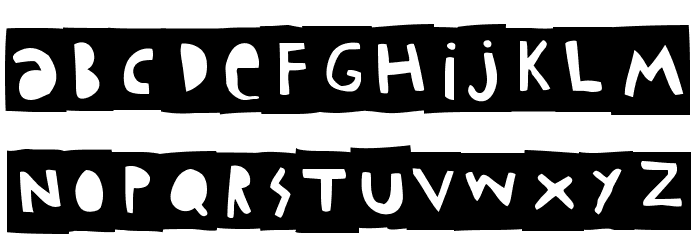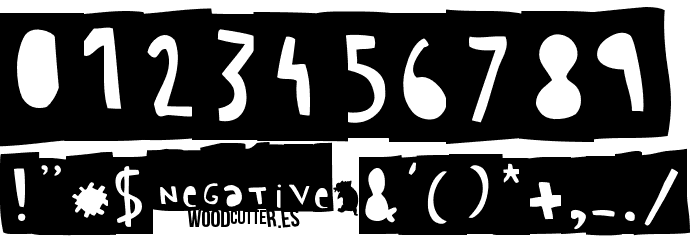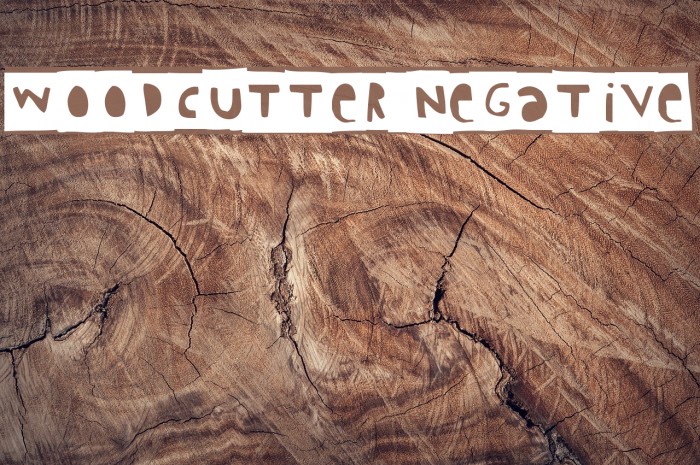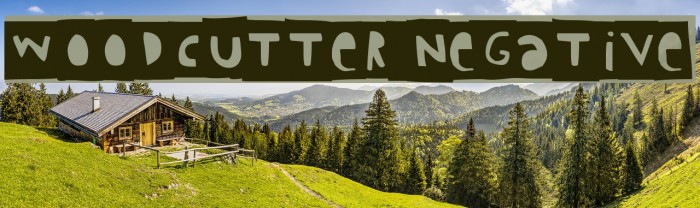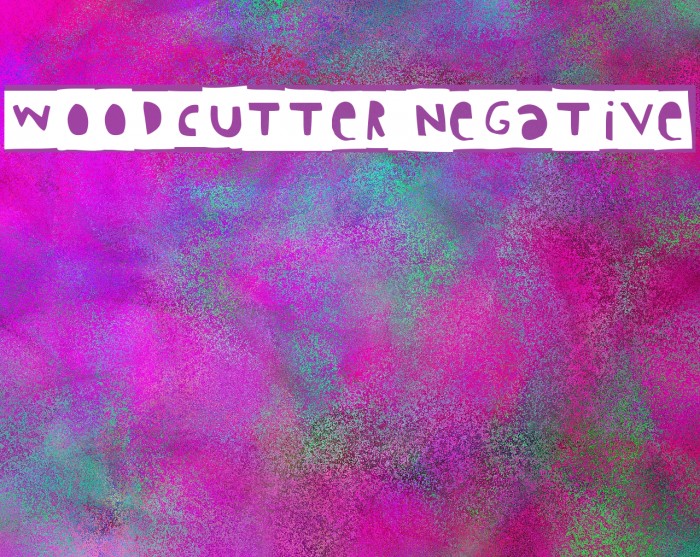
Woodcutter Negative Font
This font features a bold and playful design with a hand-drawn aesthetic. Each character is enclosed within a black rectangle, creating a striking contrast with the white letters. The uppercase and lowercase letters maintain a consistent style, with quirky and irregular shapes that add a whimsical touch. The numbers are similarly styled, with a bold and slightly uneven appearance. Special characters are included, maintaining the same playful and bold design. This font is ideal for projects that require a fun and eye-catching look, such as children's books, posters, or creative branding.
- Proposed Projects: Ideal for children's books, playful posters, creative branding, and eye-catching designs.
- Overall Style: Playful, Whimsical, Hand-drawn